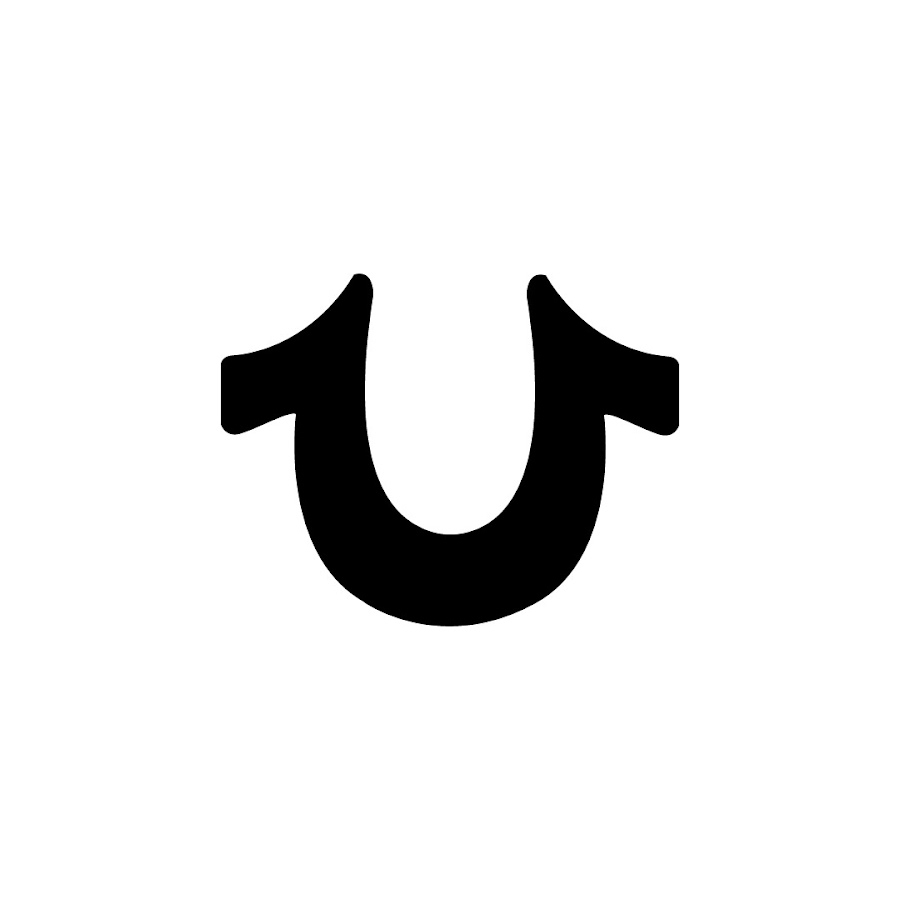
True Religion Symbol Font
True Religion Symbol Font - The font used for true religion logo is neo contact regular, which is a slab serif font published by linotype. We've searched our database for all the emojis that are somehow related to true religion.
We've searched our database for all the emojis that are somehow related to true religion. The font used for true religion logo is neo contact regular, which is a slab serif font published by linotype.
True Religion Symbol
The font used for true religion logo is neo contact regular, which is a slab serif font published by linotype. We've searched our database for all the emojis that are somehow related to true religion.
True Religion Symbol
We've searched our database for all the emojis that are somehow related to true religion. The font used for true religion logo is neo contact regular, which is a slab serif font published by linotype.
The font used for true religion logo is neo contact regular, which is a slab serif font published by linotype. We've searched our database for all the emojis that are somehow related to true religion.
We've searched our database for all the emojis that are somehow related to true religion. The font used for true religion logo is neo contact regular, which is a slab serif font published by linotype.
The font used for true religion logo is neo contact regular, which is a slab serif font published by linotype. We've searched our database for all the emojis that are somehow related to true religion.
The Font Used For True Religion Logo Is Neo Contact Regular, Which Is A Slab Serif Font Published By Linotype.